While typography may look simple at first glance, it is actually deceptively tricky. The plain, toned-down nature of typography makes it very hard for imperfections to hide anywhere. However, this is an easy fix because we, at Simplified have created the only guide you will need to understand, identify and use minimalist fonts in your design!
What are minimalist fonts?
Minimalism began around the 1950s and 60s, inspired by Bauhaus movement in architecture. At its core minimalism is about designers expressing the most essential characteristics of a product or subject.
Minimalist Fonts are clean, simple, and elegant typefaces that provide high readability. They are characterized by clean strokes and a minimal number of shapes. Below are some qualities that you should look for in a minimalist font:
- Clean lines and crisp edges;
- Very few geometric shapes withing the alphabets;
- Whitespaces to give a modern and airy look;
- Design details with significance or purpose;
- Legibility: this means letters with large apertures and distinct shapes.
Using Minimalist Fonts in Your Design
Minimal Fonts are modern typefaces that are efficient and forward-thinking. There is a great infographic by Crazy Egg that illustrates what feelings, emotions, and associations font types evoke.
There are simple tips—never use all caps and keep the number of fonts to a minimum—but a lot of formatting decisions rely on trial and error.
Grid Lover lets users customize type formatting for best readability. CSS is generated to the side, for easy implementation.
Pairing Minimalist Fonts Like A Pro
Clean lines with sleek lettering. Rough edges and maybe some brush strokes. Elegant and classy. Whatever aesthetic you’re aiming for, make sure you pick a font to match. Pair fonts that have some differentiators. Whether it’s thick and thin, tall and short, serif and sans serif. This will help create better hierarchies.
Tip #1: Pair a romantic serif (header) with a modern minimalist font (sub-header), usually, sans serif. You can use small size serif + italic for the body text.
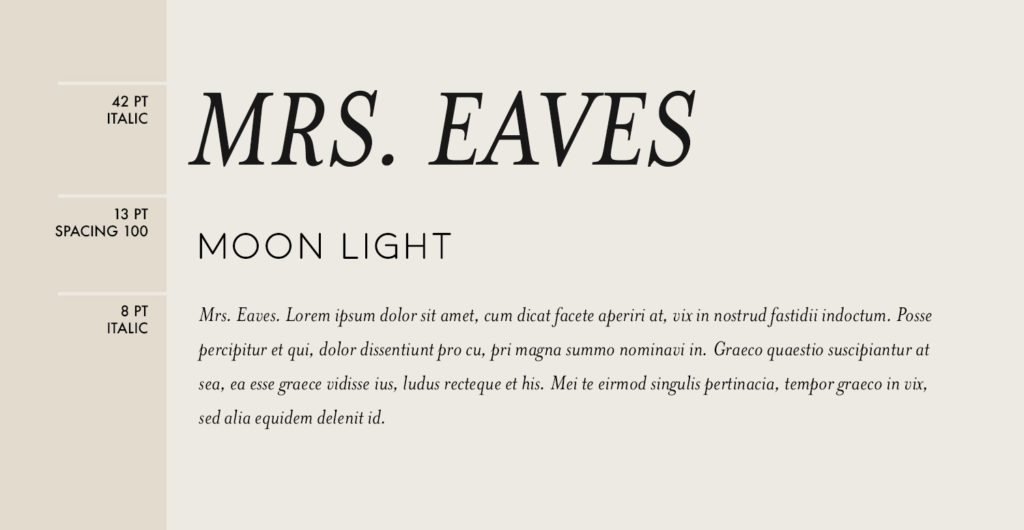
Tip #2: You can use the same minimalist font for header and sub-header but switch it up a little! You can keep the header uppercase and make the sub header italics. To make it look clean, use a minimalist sans serif font for the body.
Tip #3: Play with thickness within a minimalist font family. Pair a modern sans serif with a classic serif for the header + sub header. However, use a thinner version of the header font for the body text.
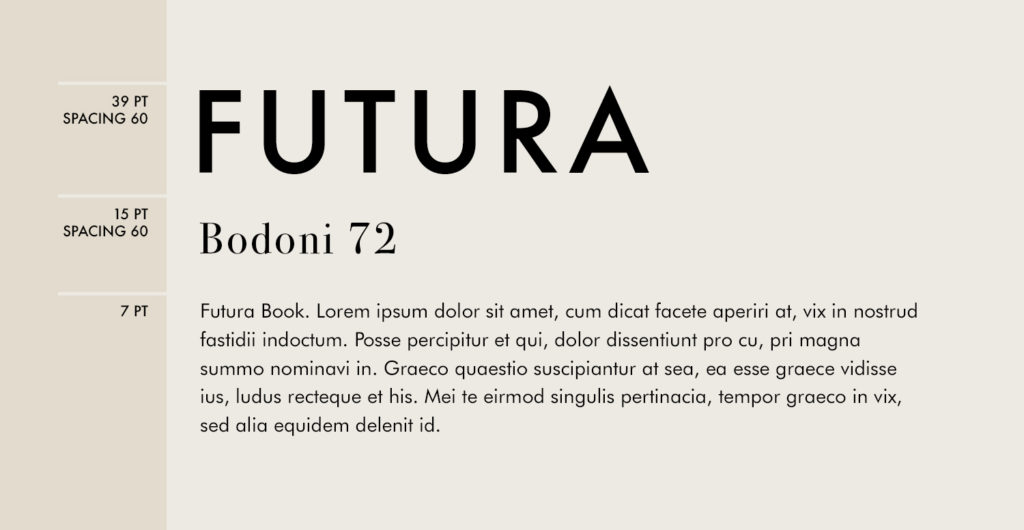
Tip #4: Similar to the aforementioned tip, play with thickness. For a modern minimalist design, use only sans serif fonts.
Famous Logos That Scream Minimalist Design
Bold, simple shapes, minimalist fonts and single color designs characterize minimal logos. They’re without the extra pizzaz and focus solely on the core design concept. These logos stand out even in the most crowded places and resonate your brand’s identity with your target audience. Below are some of the most iconic minimalist logo designs.
1. Uber
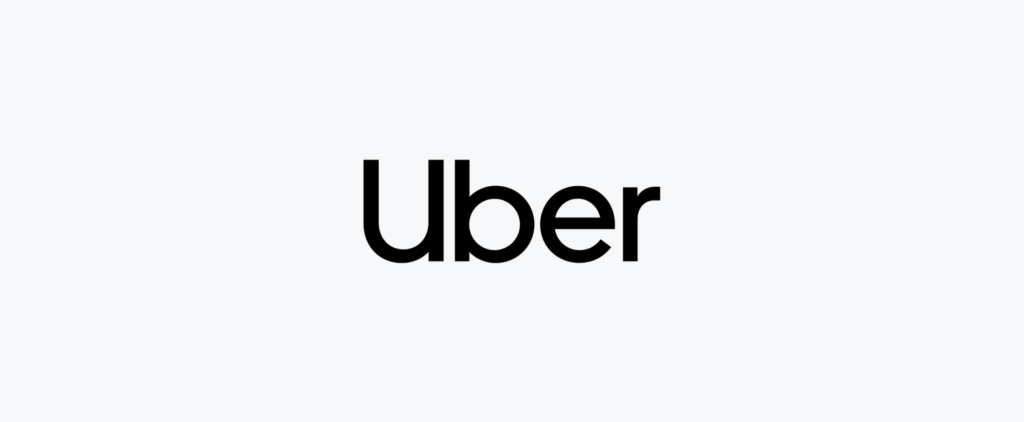
Uber’s wordmark logo is an amazing example of minimalist design. Unlike their contemporaries that use monograms or symbols, Uber opted for this clean, simplistic font. The logo was so iconic that the MCKL Type family is now synonymous with the brand.
2. Airbnb
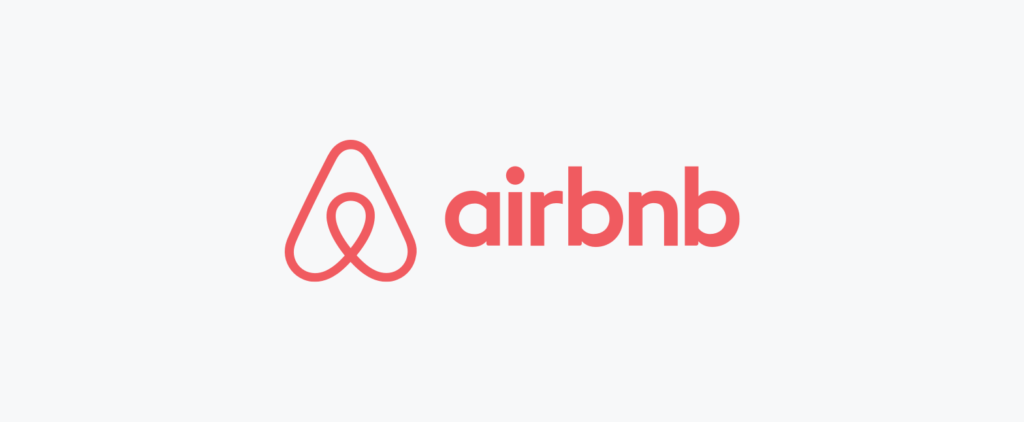
On the company’s 10th anniversary, Airbnb rolled out its new logo with the minimalist font – Cereal. The rebrand to this new modern font was done keeping in mind the company’s personality. Cereal – a geometric sans serif, was designed with an overall roundness that feels friendly and approachable. (click the link for some fun)
3. Nike
To not include Nike in this list of minimalist design logos, is to err. The logo, also known as “Swoosh” was designed by a graphic student Carolyn Davidson in 1971. The swoosh was emblematic of the company name, that is, the winged Greek goddess of victory. The minimalist font appearing above the swoosh is italicized Impact, a sans serif typeface created by Geoffrey Ley in 1965.
Owing to a myriad of font choices and their strikingly similar characteristics, it becomes difficult to distinguish between typefaces. That’s why we have created a list of chrome extensions you can use to identify fonts.
1. Fonts Ninja
Fonts Ninja has over 400k users and average rating of 4.4 out of 5. The free version of the extension helps you quickly identify fonts by hovering on the text. Furthermore, it provides a summary and preview of all the fonts and lets you bookmark them. This extension is our go-to for identifying that minimalist font we adore!
2. WhatFont